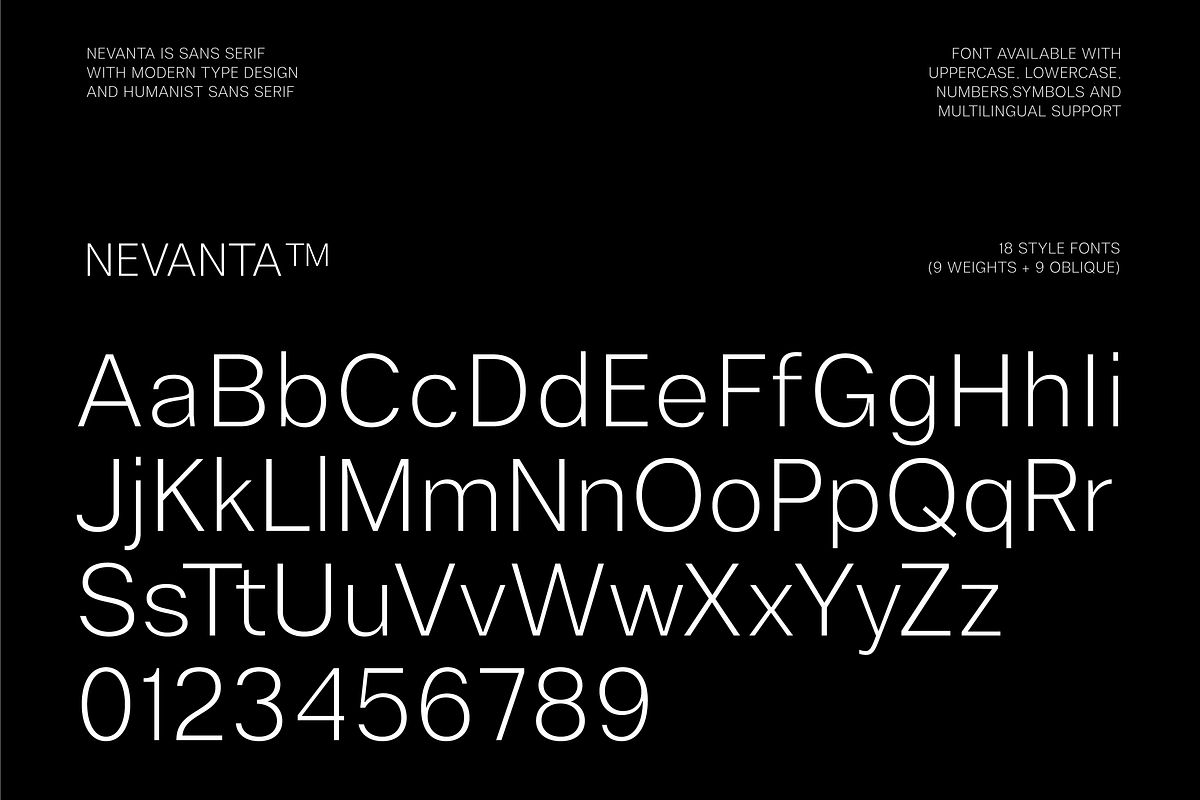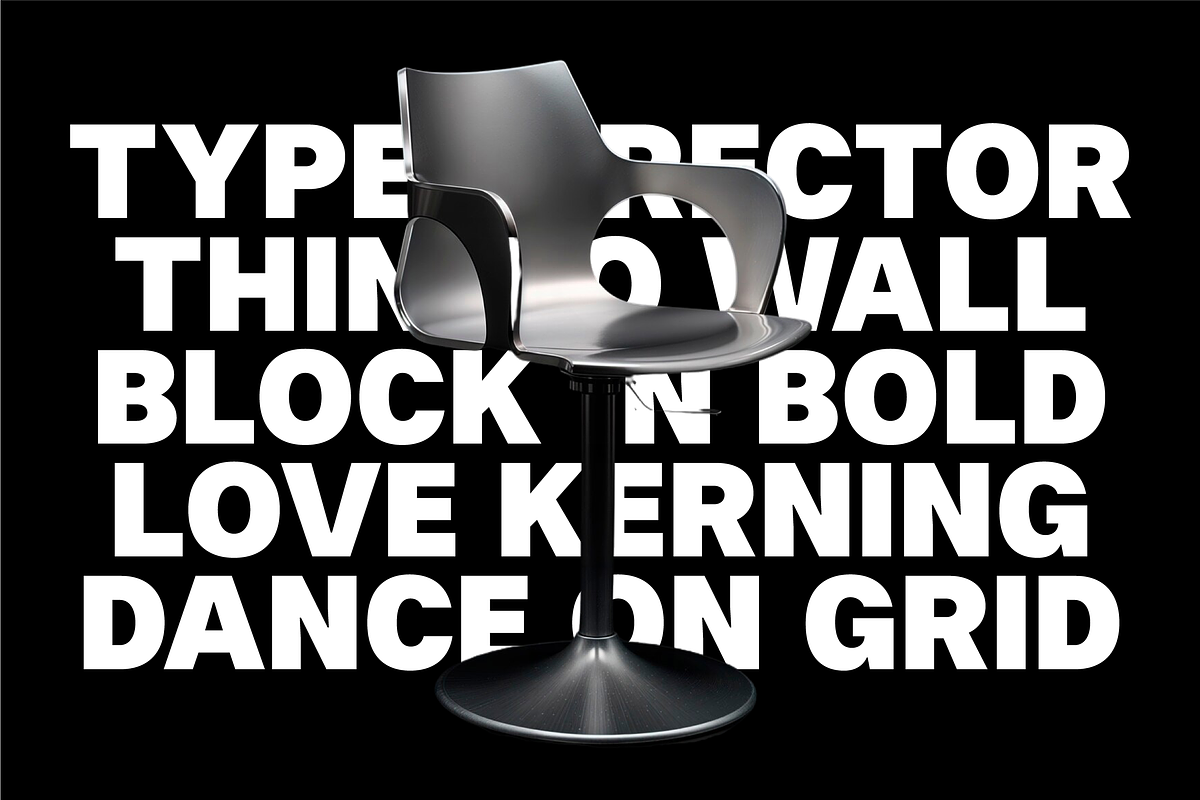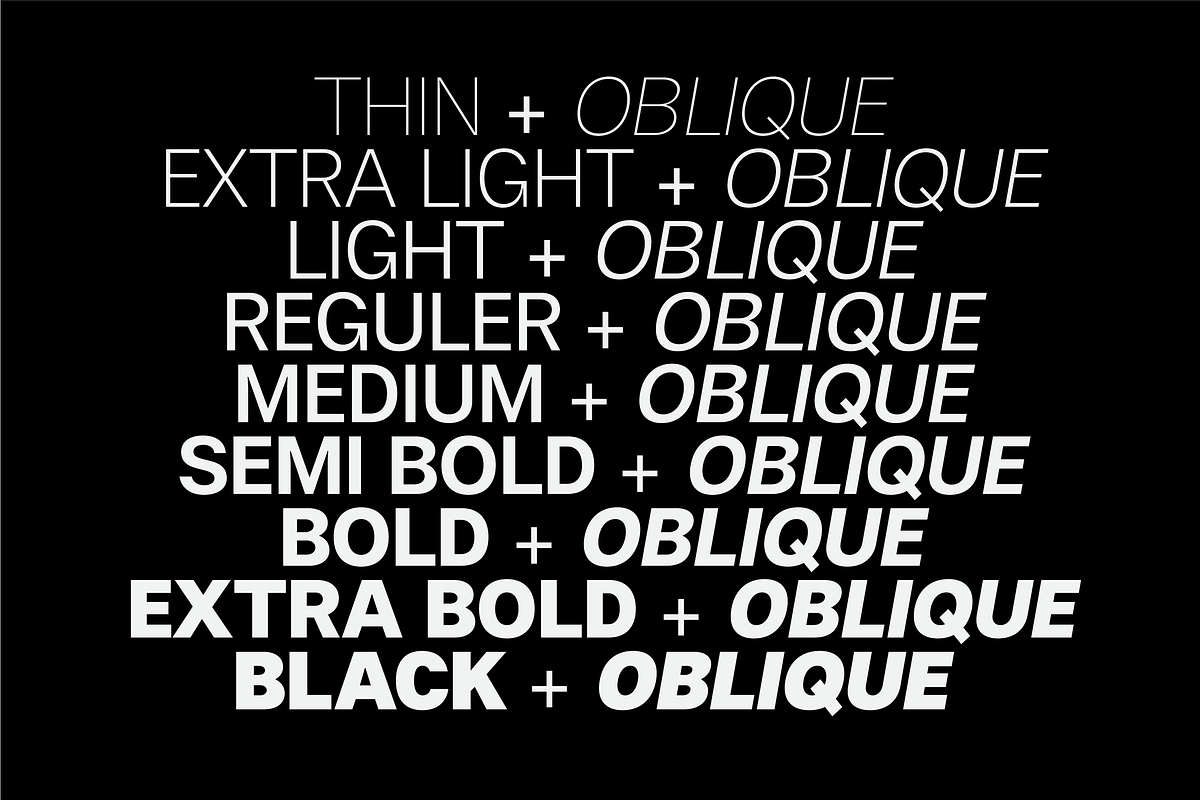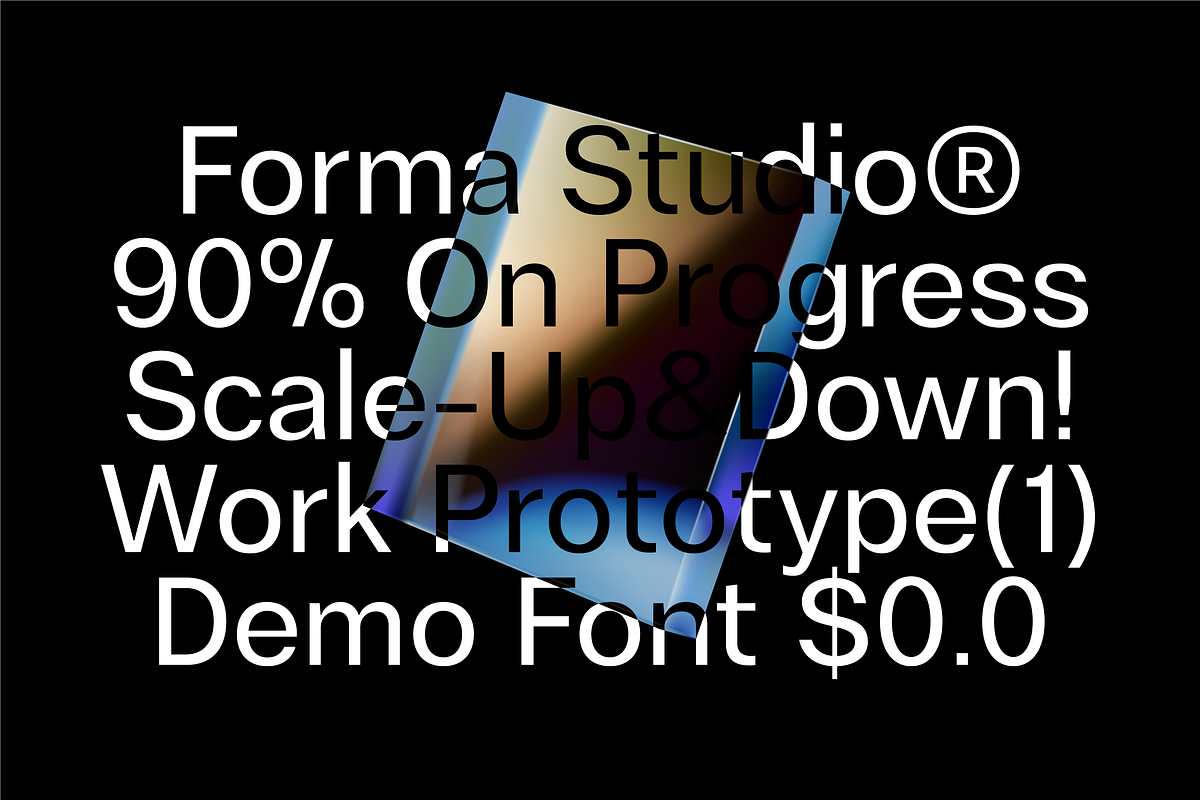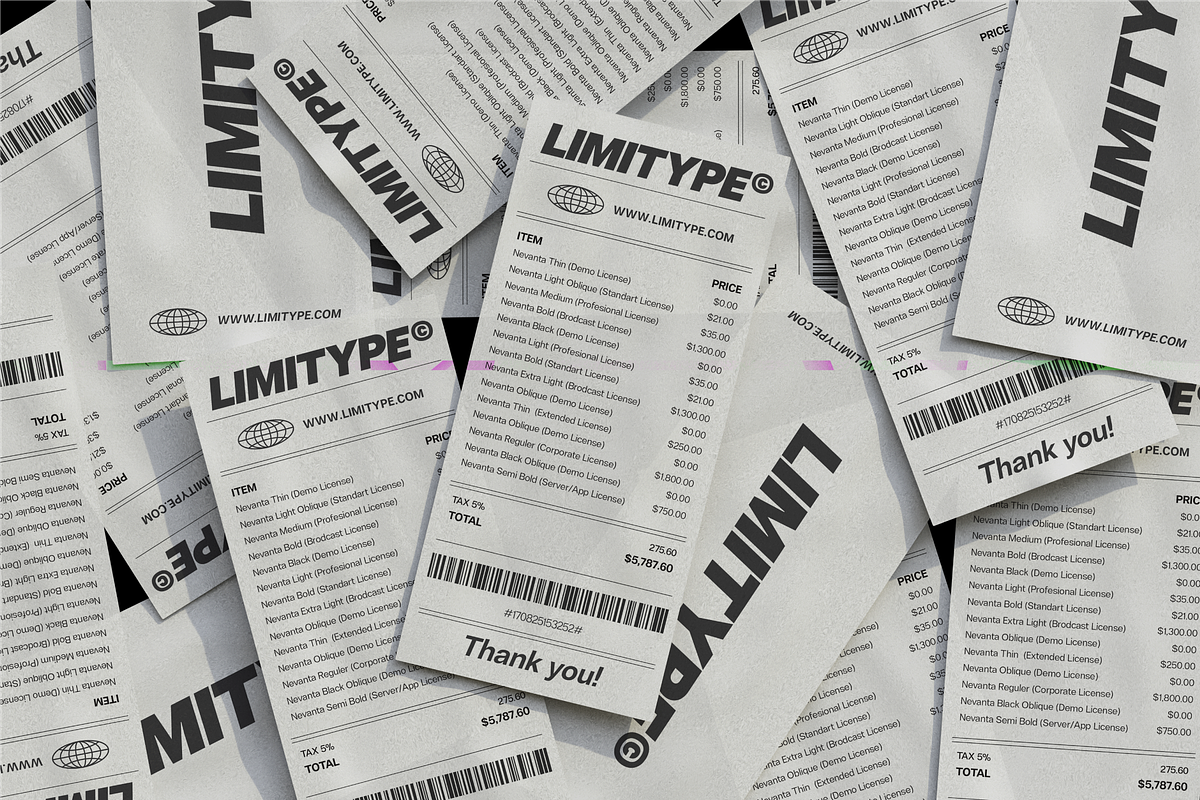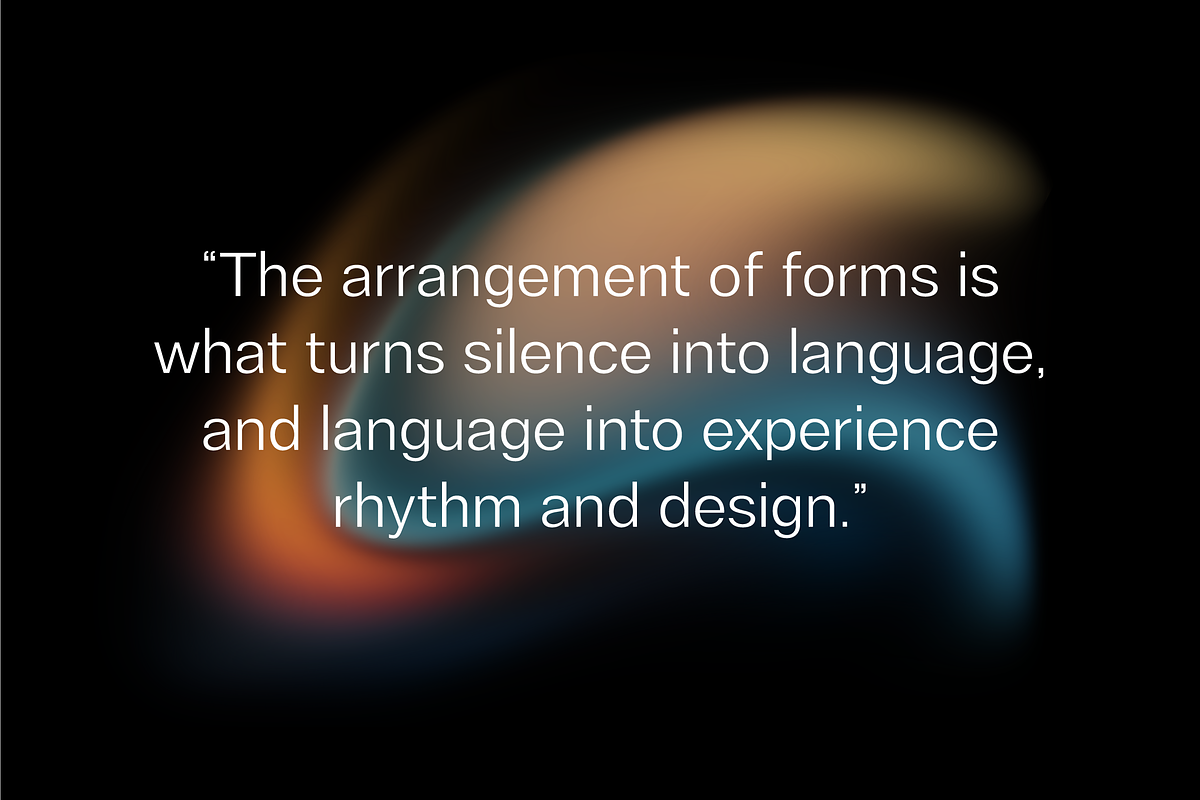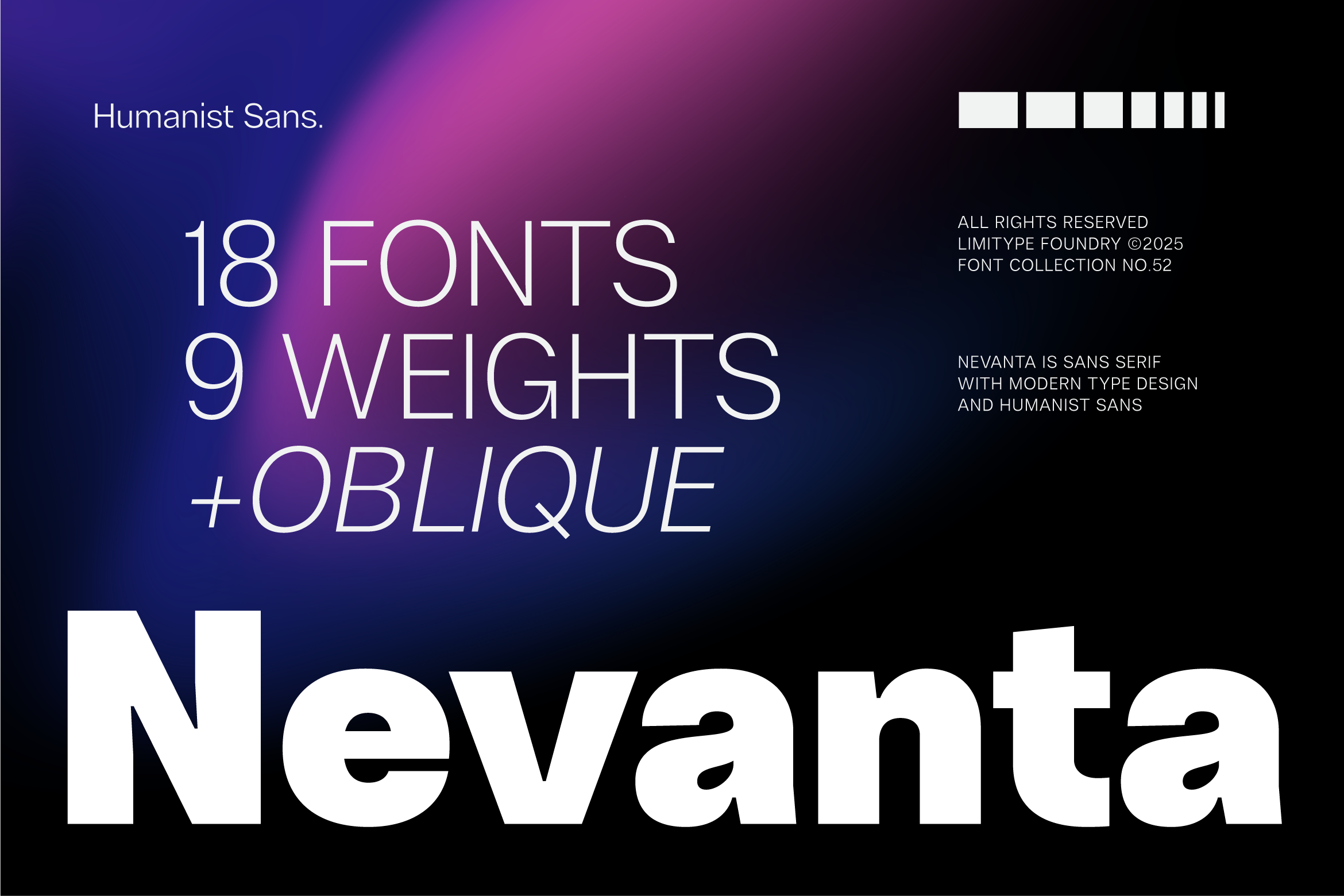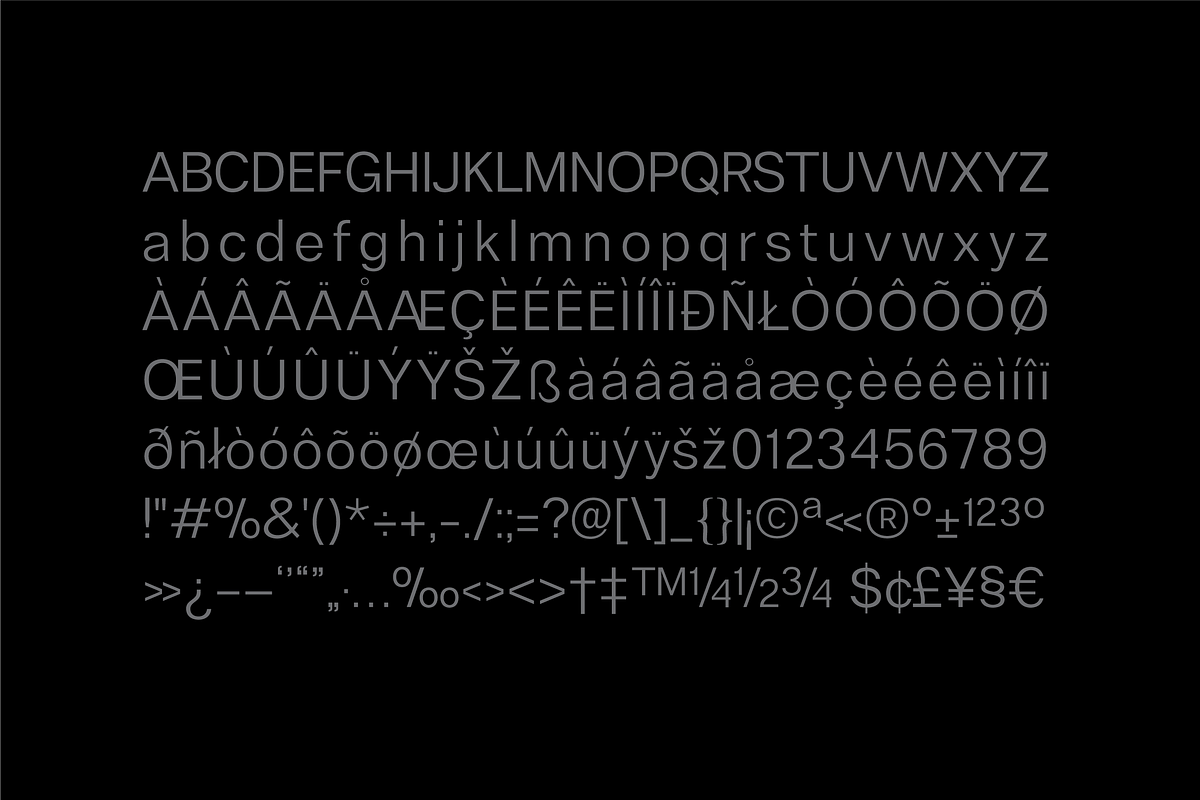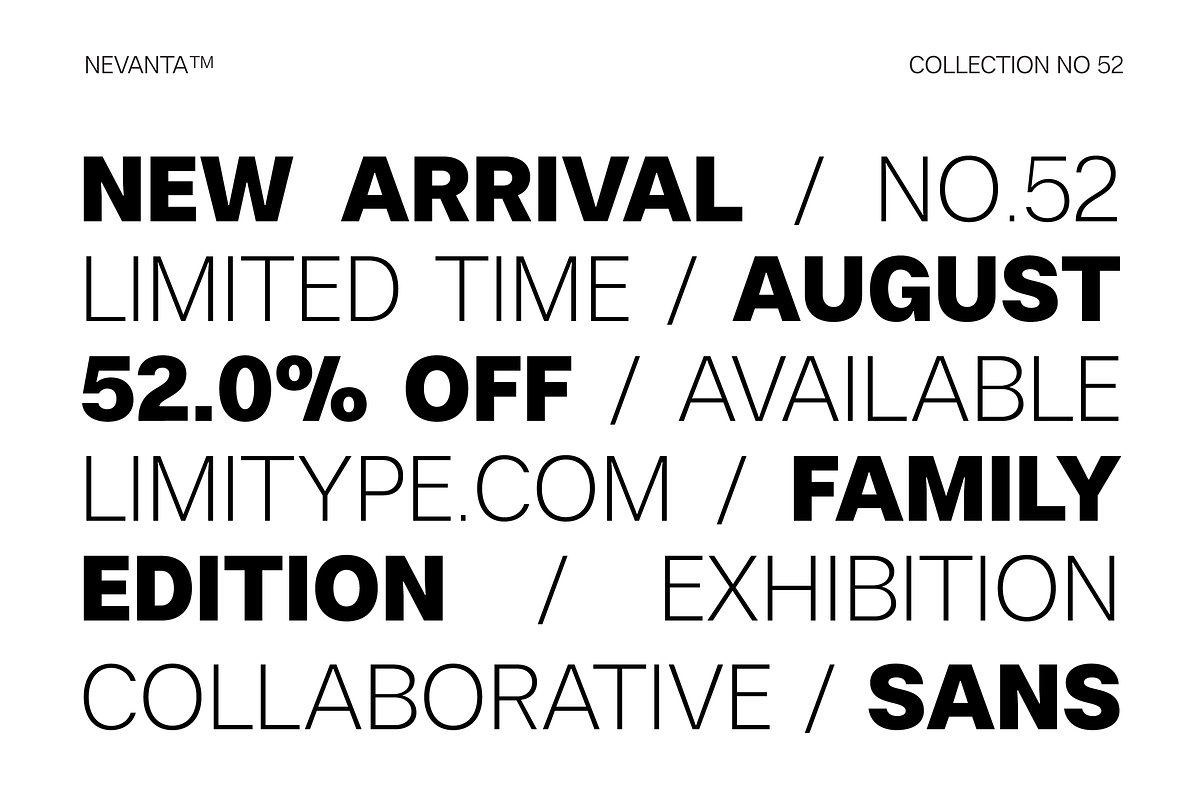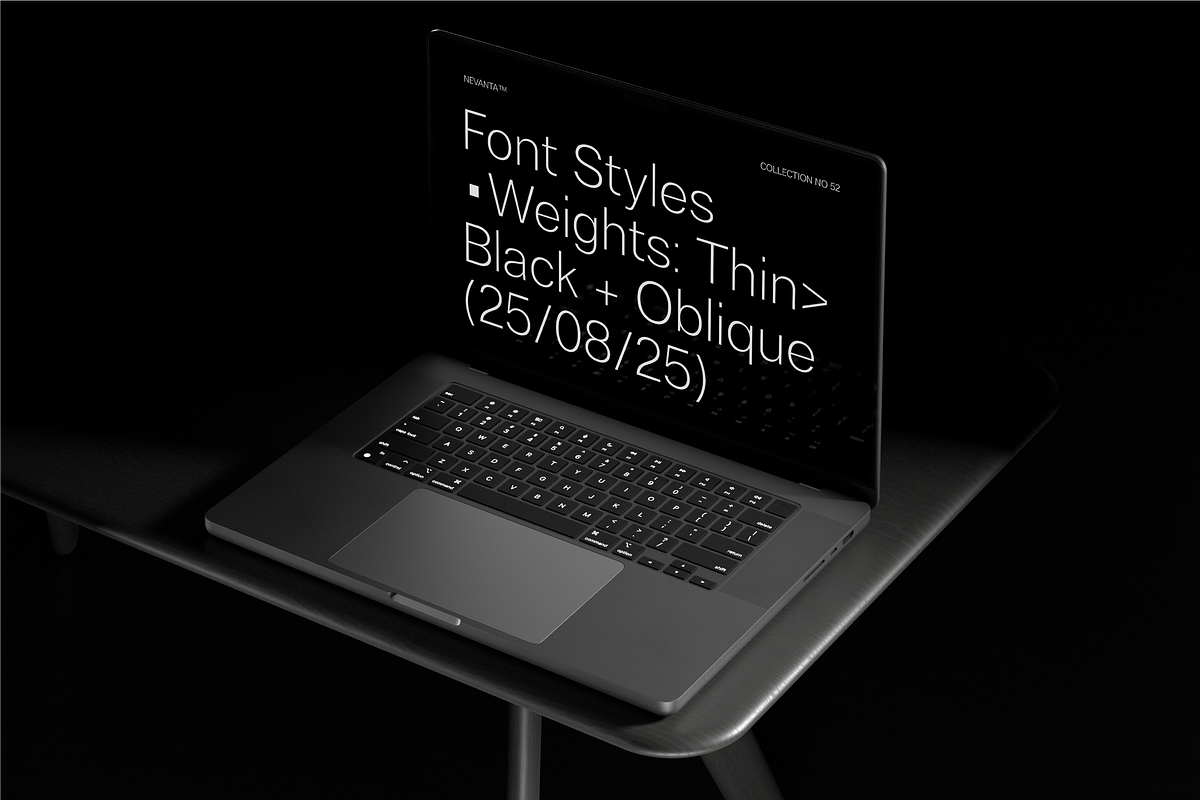
Nevanta - Sans Serif Font
Nevanta is a modern sans serif font with 18 styles (9 weights + Oblique), designed for professional, clean, and versatile typography. With precise geometric proportions and excellent readability, it is ideal for branding, websites, editorials, posters, and corporate identity. Multilingual support ensures flexibility, making it a complete typeface solution for both creative and professional projects.
Nevanta available with:
- Lowercace
- Symbol
- Multiligual
- Oblique